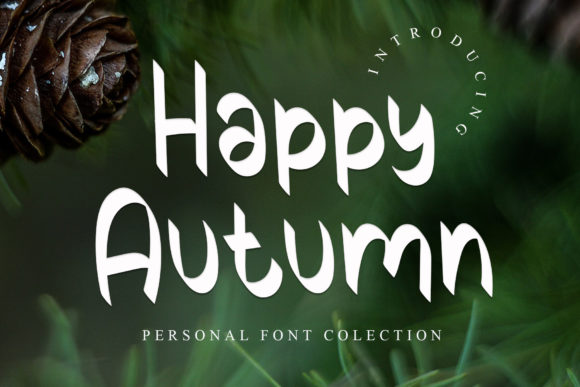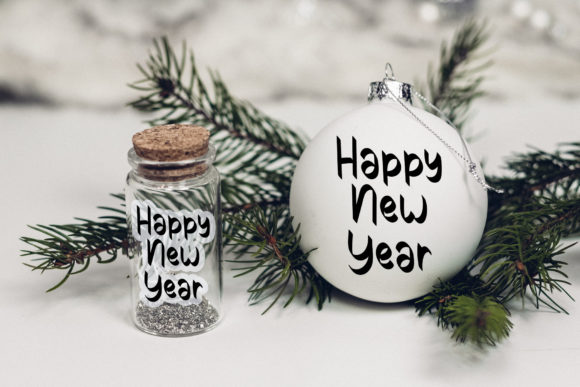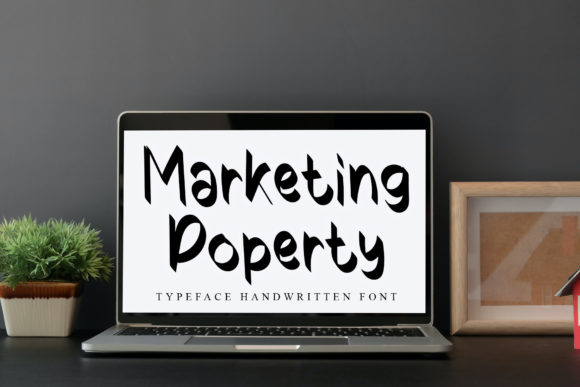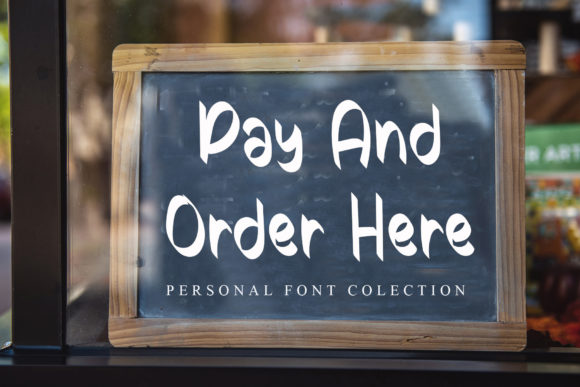
Happy Autumn Font
About Happy Autumn Font
Happy Autumn is a unique and elegant script font. Simple and easy to use, this font will be very beautiful if you mix it with your various craft designs.